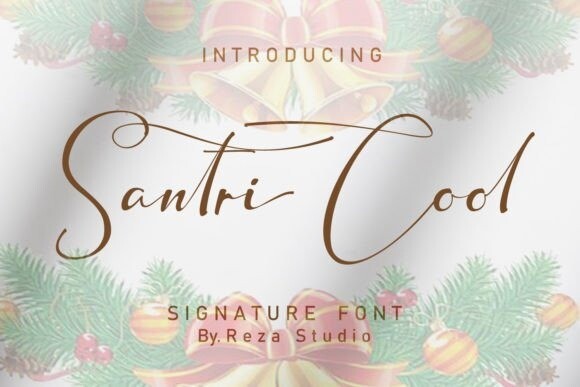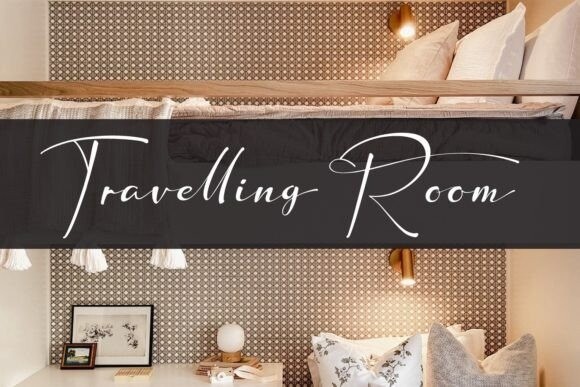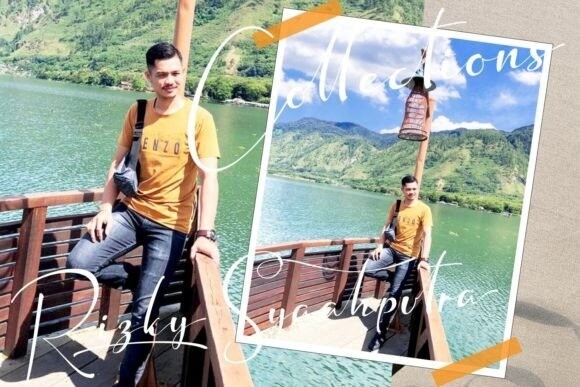
Santri Cool Font
Santri Cool is a handwritten signature font with a cool calligraphy style, ideal for creating handwritten style logos, wedding stationery, photographer watermark logos, modern websites, and more.
Santri Cool features handwritten binding, and start and end strokes for lowercase letters.